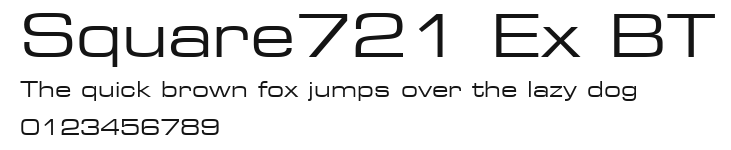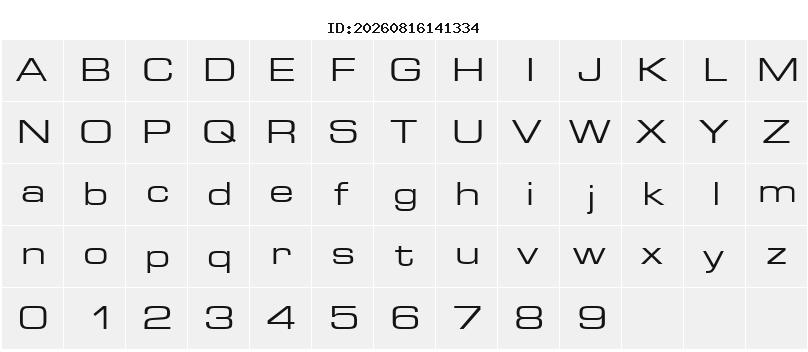
• Font Name: Square721 Ex BT
• Font Style: Roman
• Font ID: Square 721 Extended
• Full Font Name: Square721 Ex BT Roman
• PostScript Name: Square721BT-RomanExtended
About Square721 Ex BT.ttf
Square721 Ex BT.ttf is a modern, elegant sans-serif font designed for ultimate readability and visual harmony. Perfect for branding, headlines, web design, and print materials.